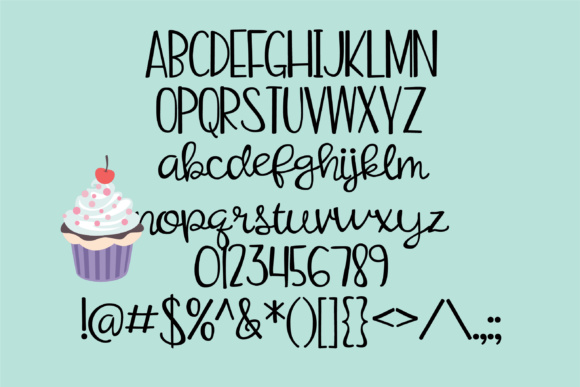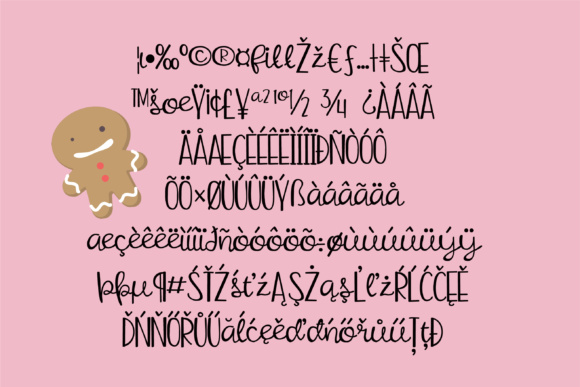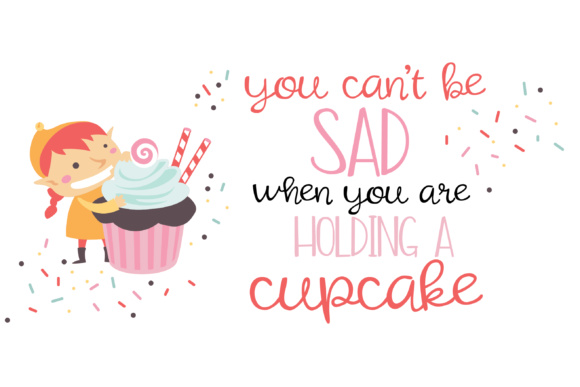
Introduction to Shugarpie Honeybunch Font
This font-duo in one font has an uppercase that looks great when used alone and the lowercase is an adorable script.
Key Features of Shugarpie Honeybunch Font
Why Choose Shugarpie Honeybunch Font?
Shugarpie Honeybunch Font offers exceptional quality and versatility, making it a valuable addition to your design toolkit. Whether you’re creating for personal projects or commercial use, Shugarpie Honeybunch Font delivers professional results.